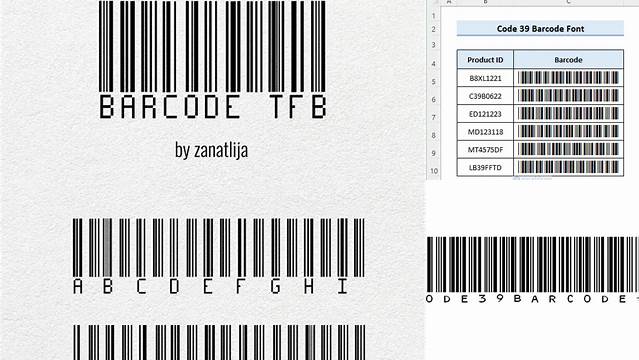
Hey everyone! Ever needed to generate Code 39 barcodes for your projects? You're in the right place. This article will give you the lowdown on Code 39 barcode font packages, including how to get one for free, install it, and start using it in your documents and applications. We'll cover everything from the basics of Code 39 to how to download a font, install it on your system (Windows, macOS, etc.), and integrate it into popular software like Microsoft Word, Excel, and other applications. Let's dive in, shall we?
What is Code 39? Decoding the Basics
So, what exactly is Code 39? Code 39 is a variable-length barcode symbology. It's a super common barcode that's been around for a while and is still used in various industries. It's known for being simple, easy to use, and can encode alphanumeric characters. The key advantage of Code 39 is its ability to represent both numbers and uppercase letters. This makes it really versatile for applications where you need to include text in your barcodes, like inventory tracking, labeling products, and managing assets. It's self-checking, meaning it includes a check digit, but it can also be used without one. The ability to include text is a huge advantage over other barcodes that are limited to numbers. Code 39 is also relatively easy to understand and implement, which is why it has been used so widely for so long. Plus, it's compatible with most barcode scanners, making it super convenient in real-world applications. The barcode itself consists of bars and spaces of varying widths. Each character in Code 39 is represented by a unique pattern of these bars and spaces. The start and stop characters are also unique patterns, which signal the beginning and end of the barcode. Because it’s been around for a while, it's generally easy to find a Code 39 font and use it in most of the software you already have. It's a good solution for smaller businesses and applications that do not require the high density or specific data character requirements of other barcode types, such as Code 128 or QR codes. For example, if you're just trying to create some basic labels or tags, Code 39 is perfect. It's a tried-and-true method that's stood the test of time.
When working with Code 39, the character set includes the numbers 0-9, uppercase letters A-Z, and a few special characters like the space, minus (-), period (.), dollar sign ($), slash (/), and percent (%). It’s a good balance of simplicity and functionality. This allows you to encode a wide range of information without having to get into the complexities of more advanced symbologies. The flexibility of Code 39 makes it a good choice for a wide range of applications, from shipping and receiving to manufacturing and libraries. It is also relatively simple to create, meaning you can create your own barcodes without special equipment or training. One of the key reasons for its popularity is its open nature. Code 39 is not a proprietary standard, so it can be used by anyone without paying licensing fees. This makes it attractive for small businesses and organizations on a budget. Keep in mind that Code 39 has a lower data density compared to more modern barcode symbologies. This means that for a given amount of data, the barcode will be physically longer. The size of the barcode will depend on the length of the data you're encoding, and on the size of the font you're using. The best way to understand Code 39 is to try it yourself and see how it works. You can download a Code 39 font, install it, and start generating barcodes in your favorite software. This is a great way to get a feel for how the barcode works and see how it applies to your specific needs.